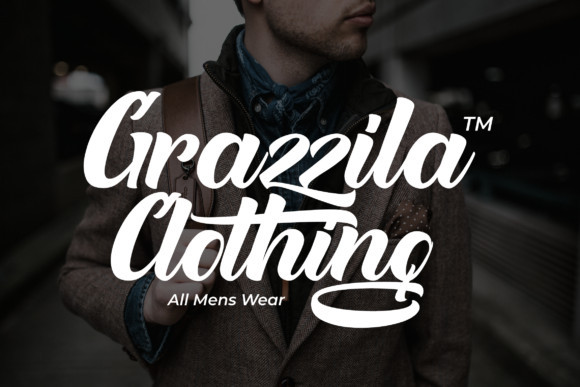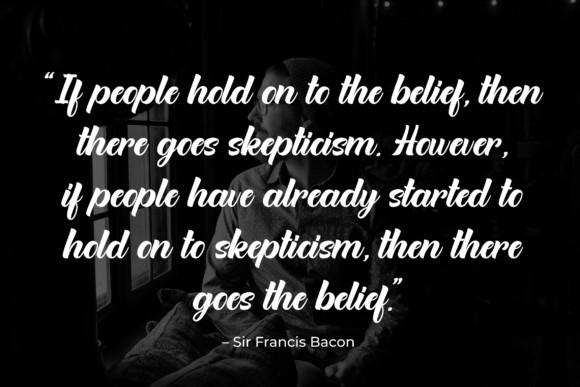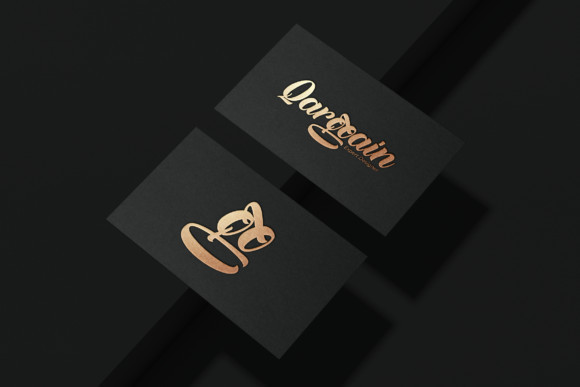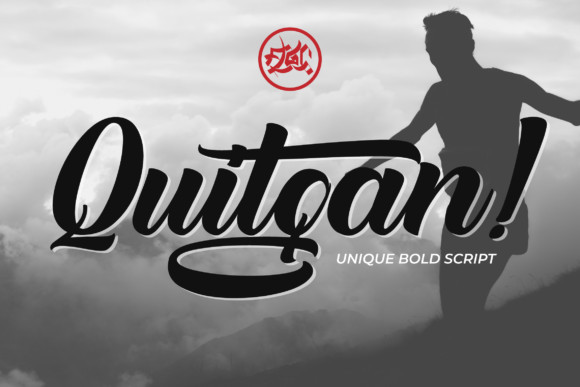
Quitgan Bold Script Font
This is a bold script typeface which is simple yet casual. It’s a bold casual and fun script that stands out from the crowd. Made by hand written with many opentype features that you will like. Introducing Quitgan Font. It is design and shared by Fallengraphic. It’s an incredibly original and dynamic script featuring modern swashes. Its unique approach to lettering will take any design idea to the next level. Perfect to be used especially for logo type, signature, photography, quotes, apparel design, and any design needs.